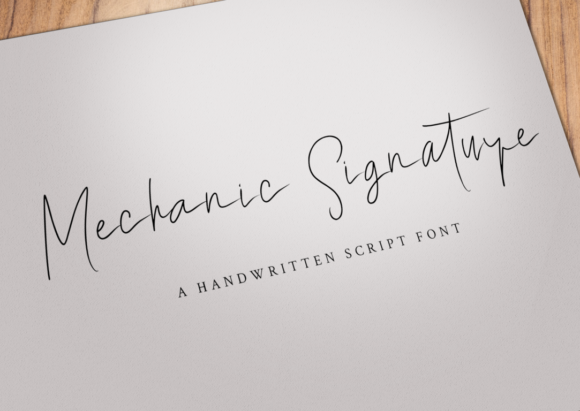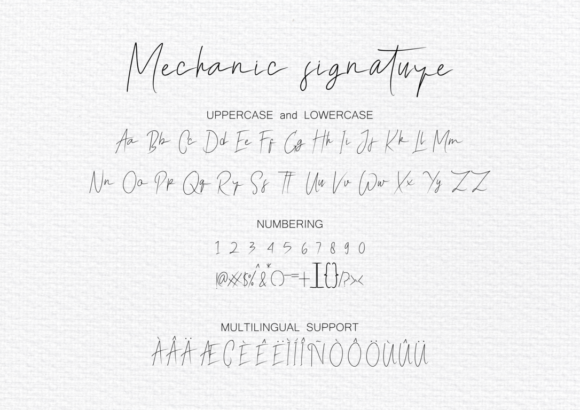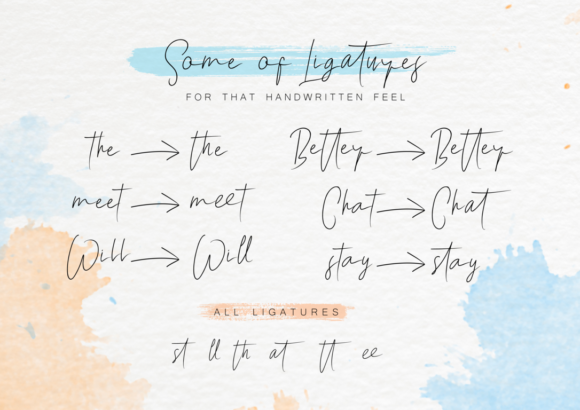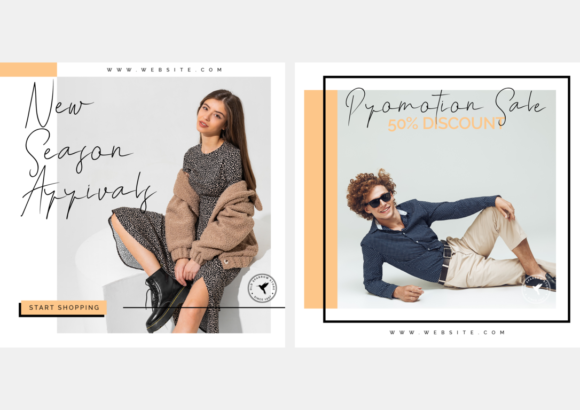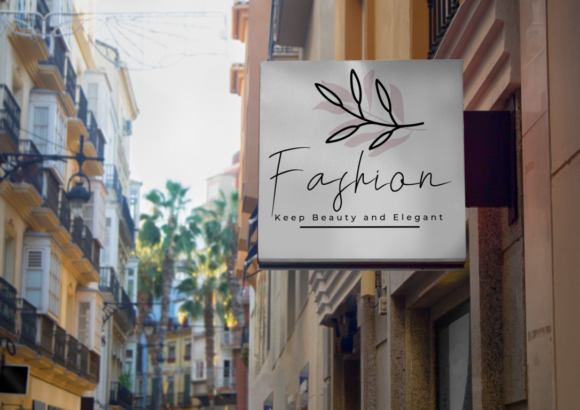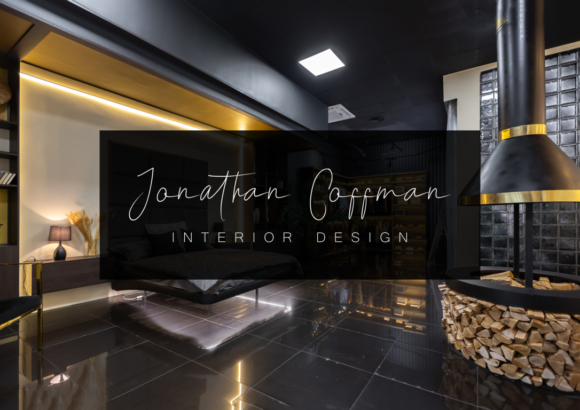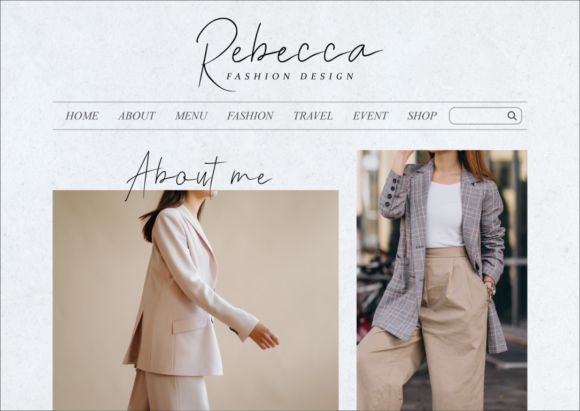
Mechanic Signature Font
About Mechanic Signature Font
Mechanic Signature is a romantic and sweet calligraphy typeface with characters that dance along the baseline. It will add a luxury spark to any design project that you wish to create! This font is PUA encoded which means you can access all of the amazing glyphs and ligatures with ease!